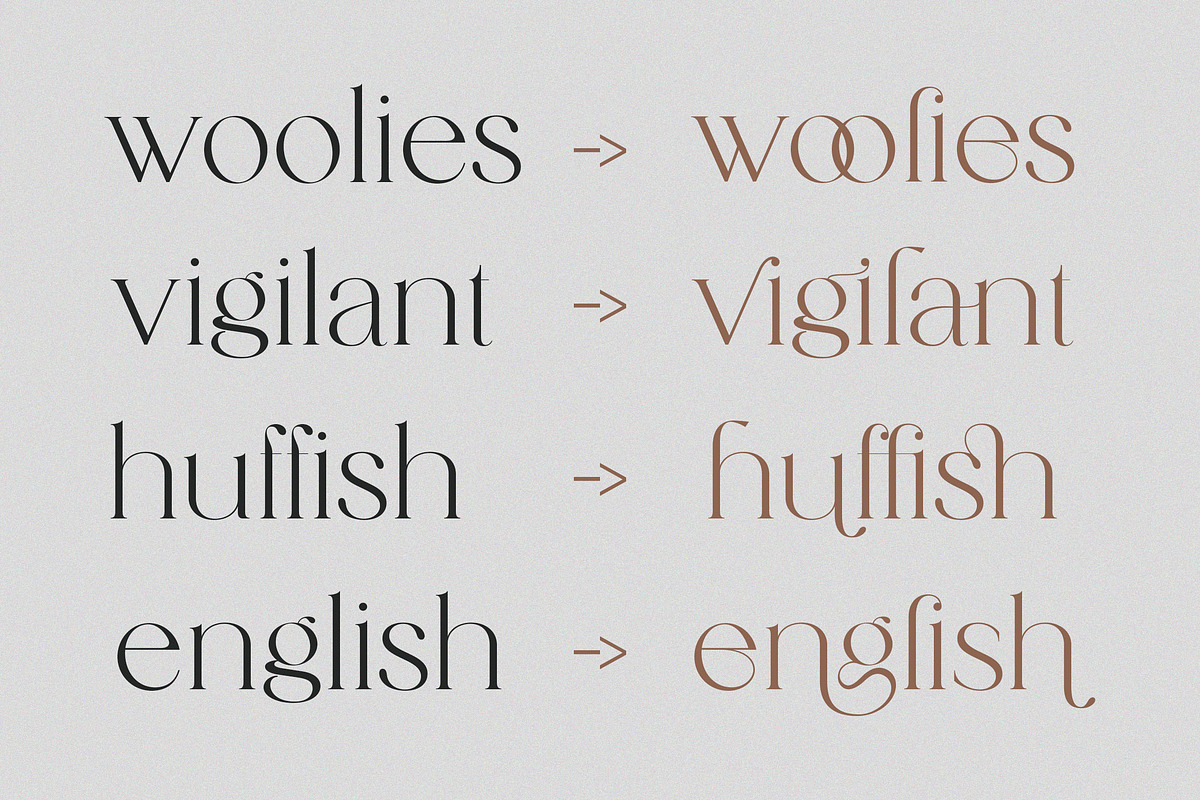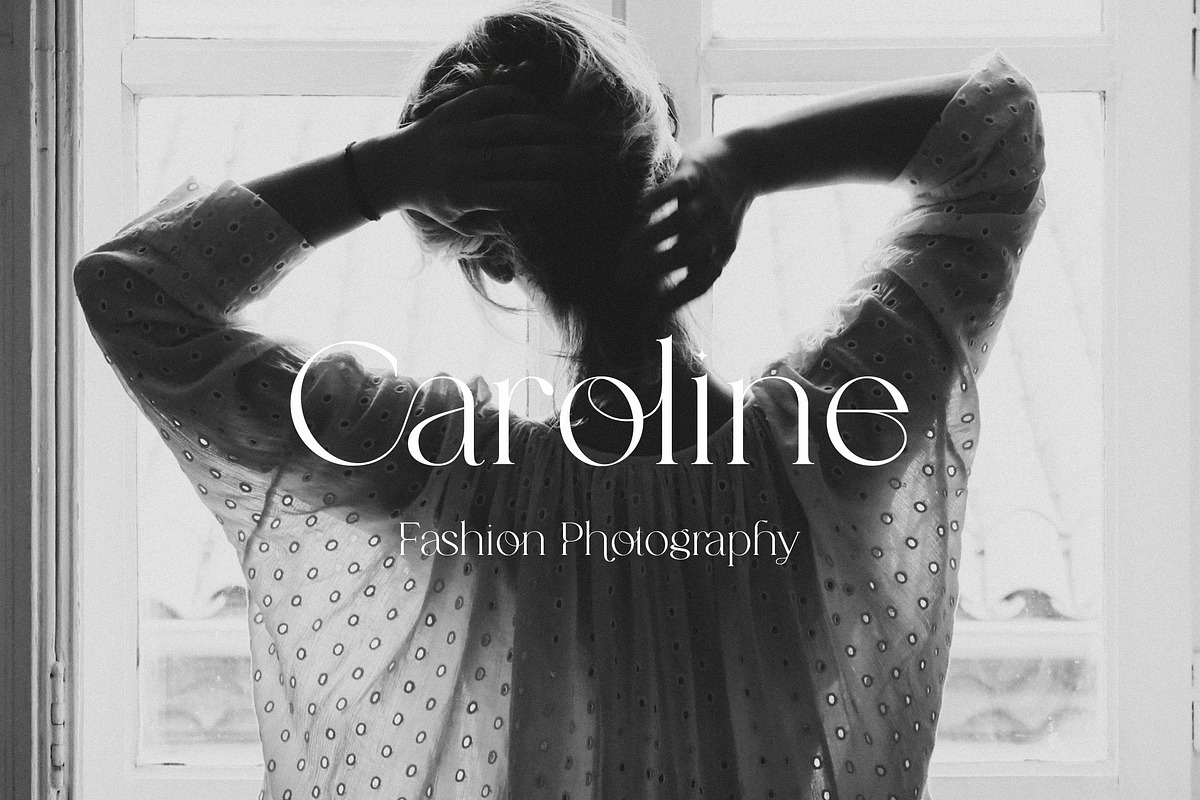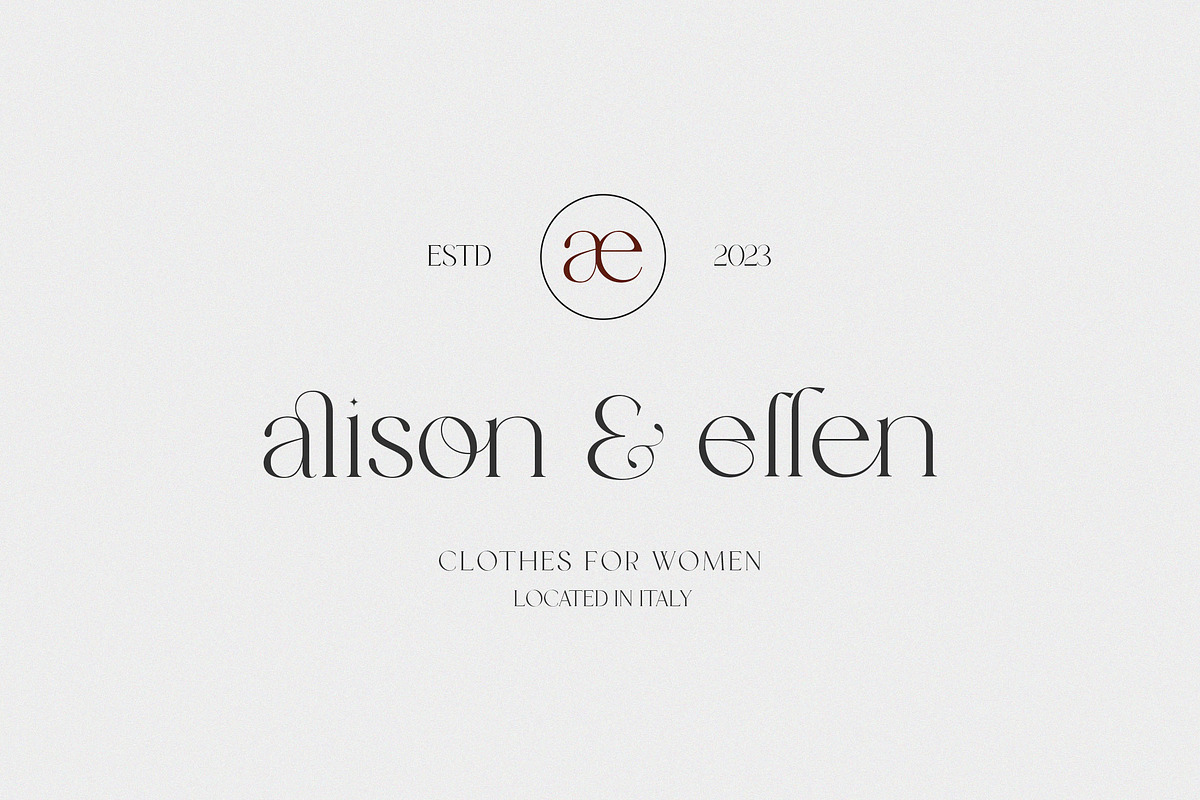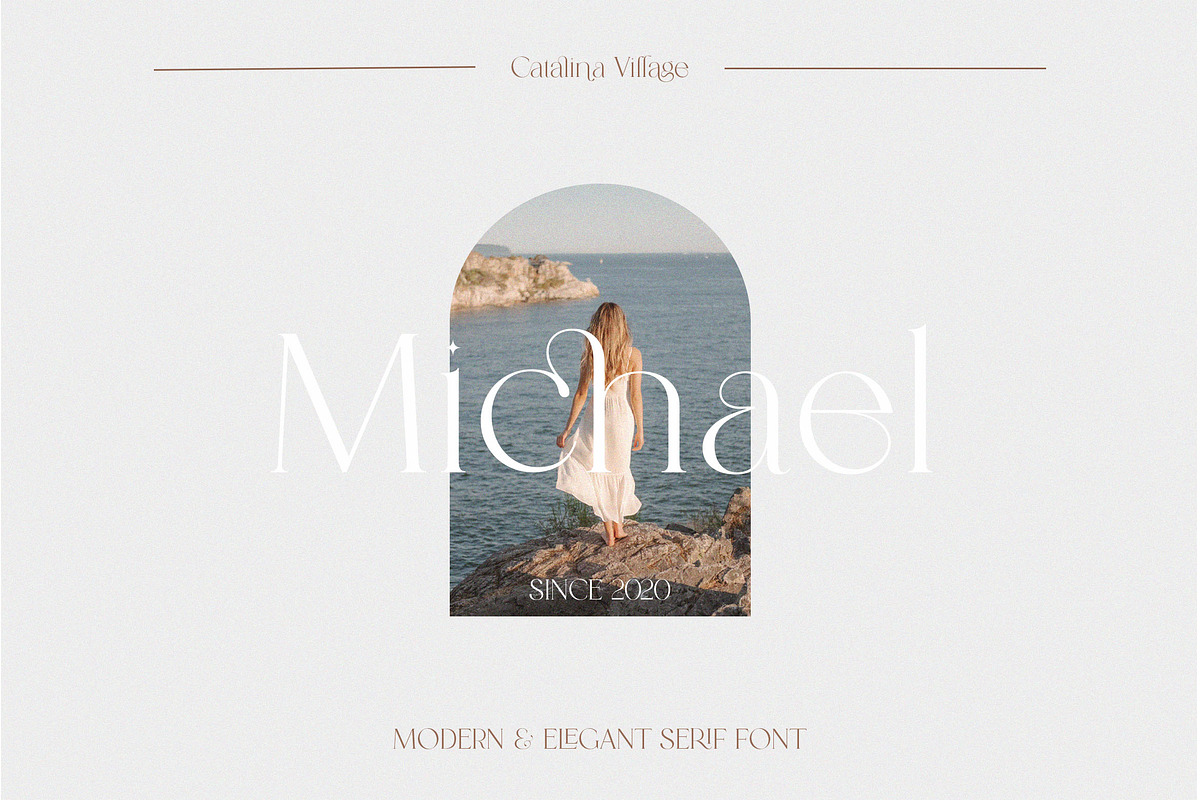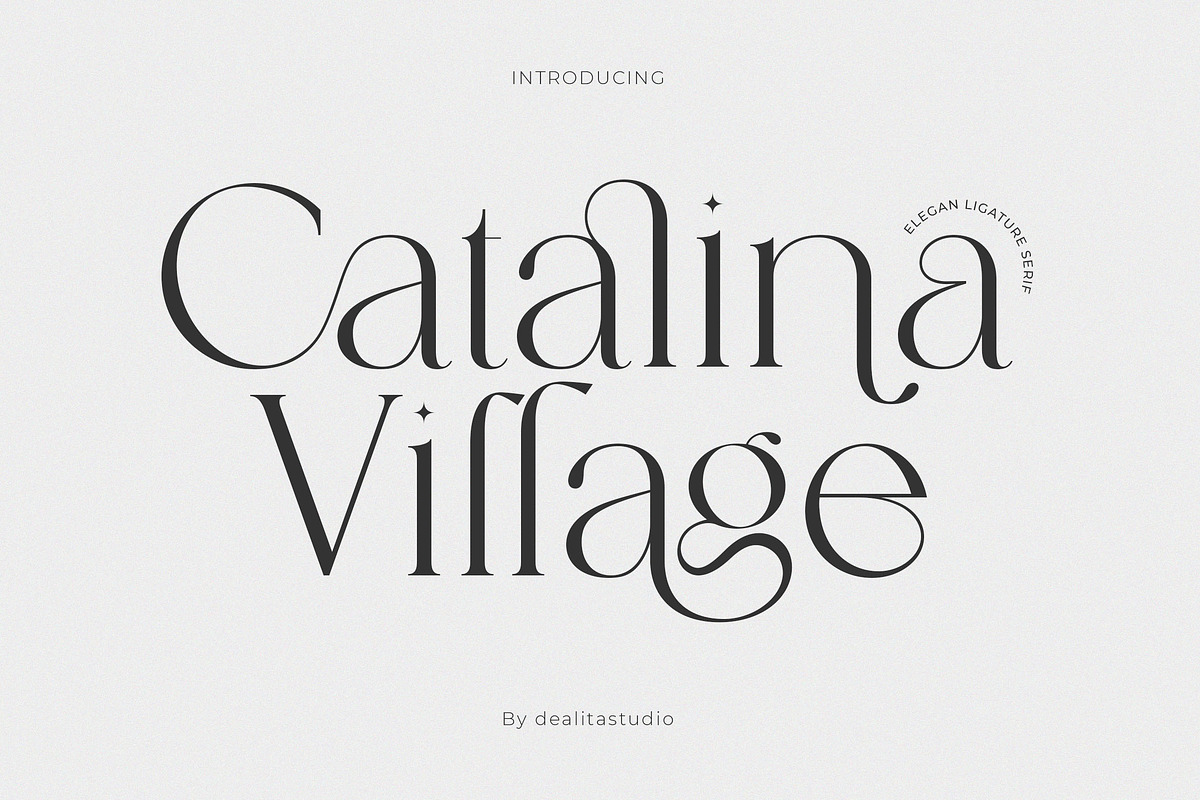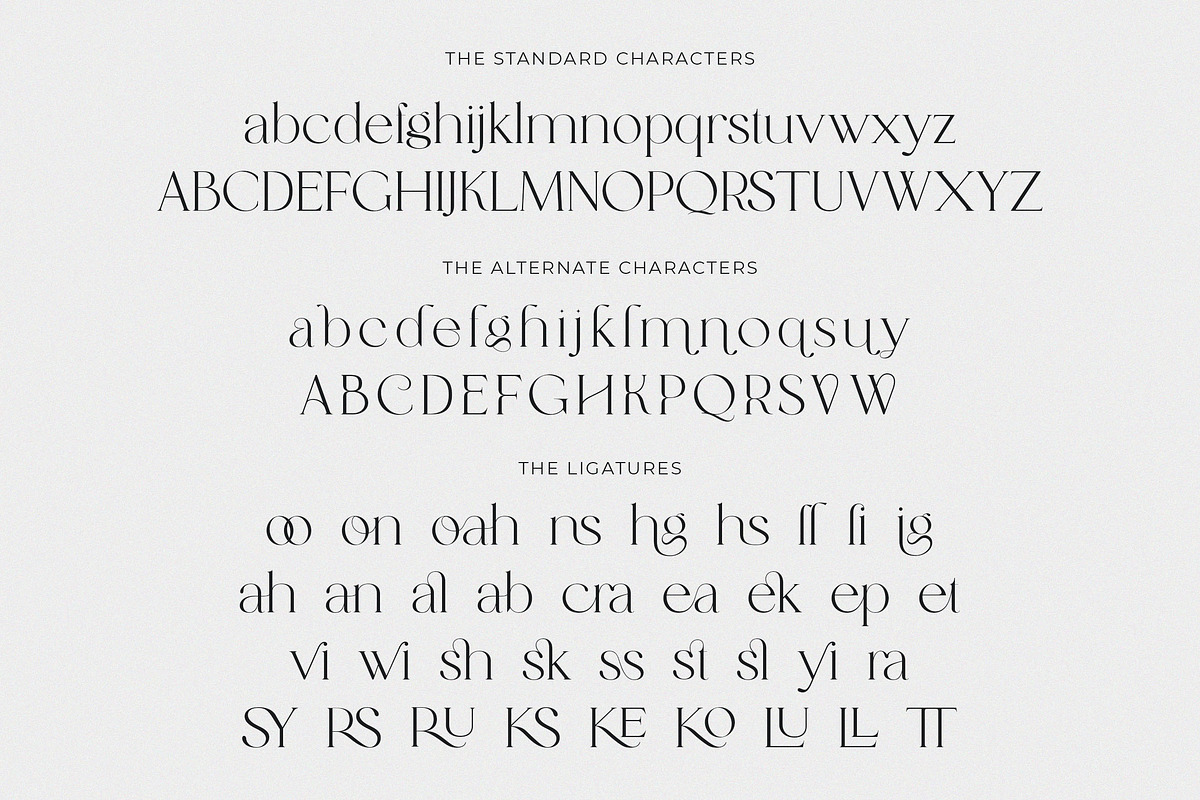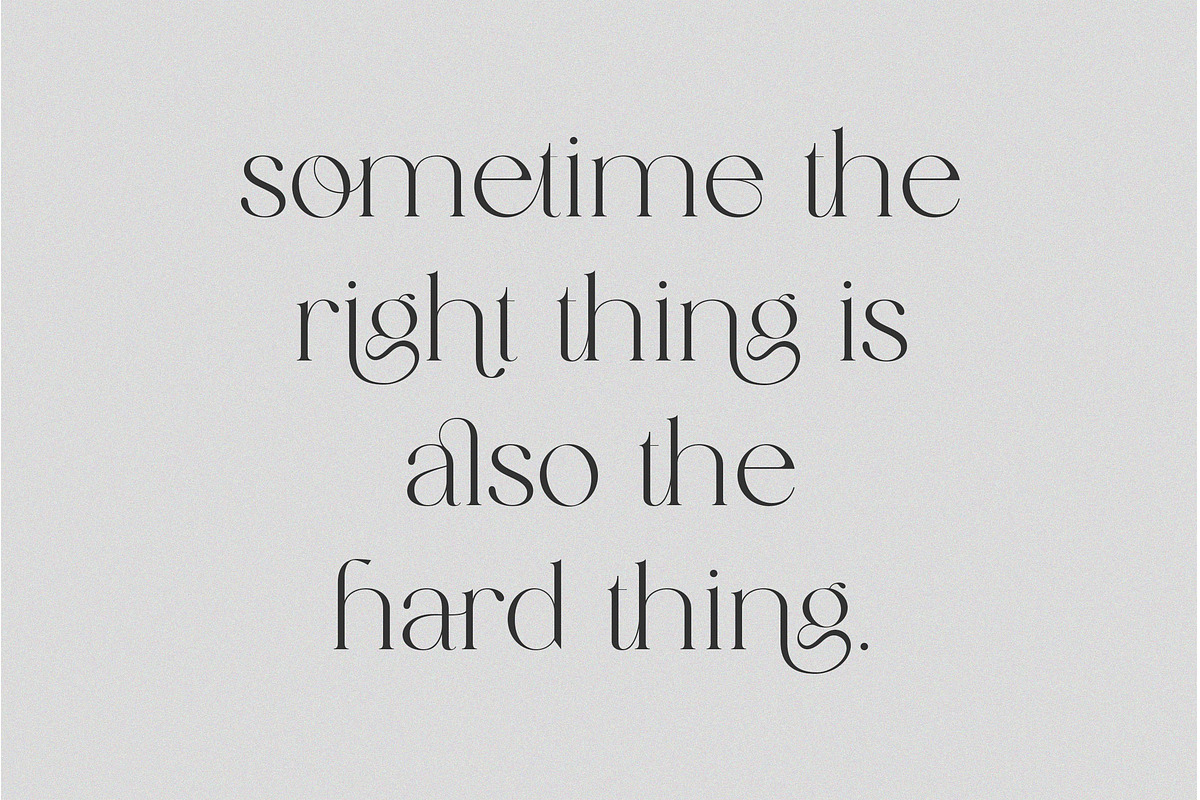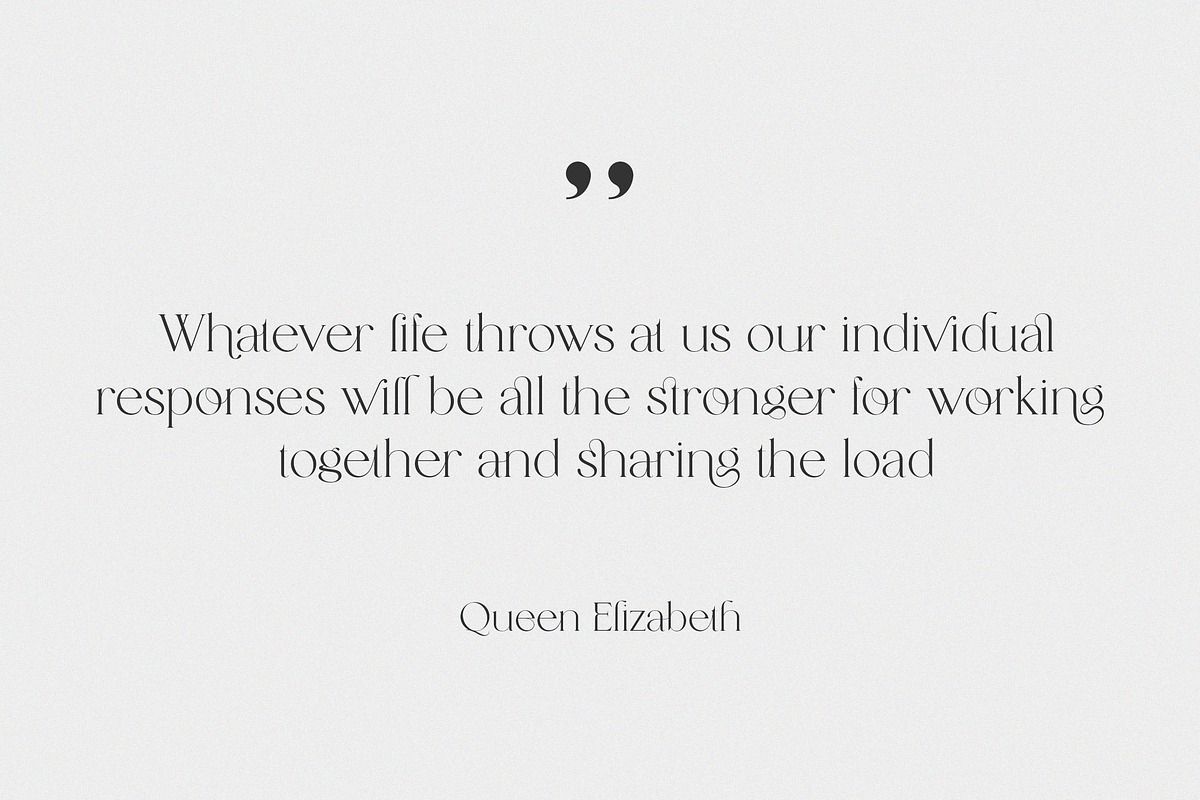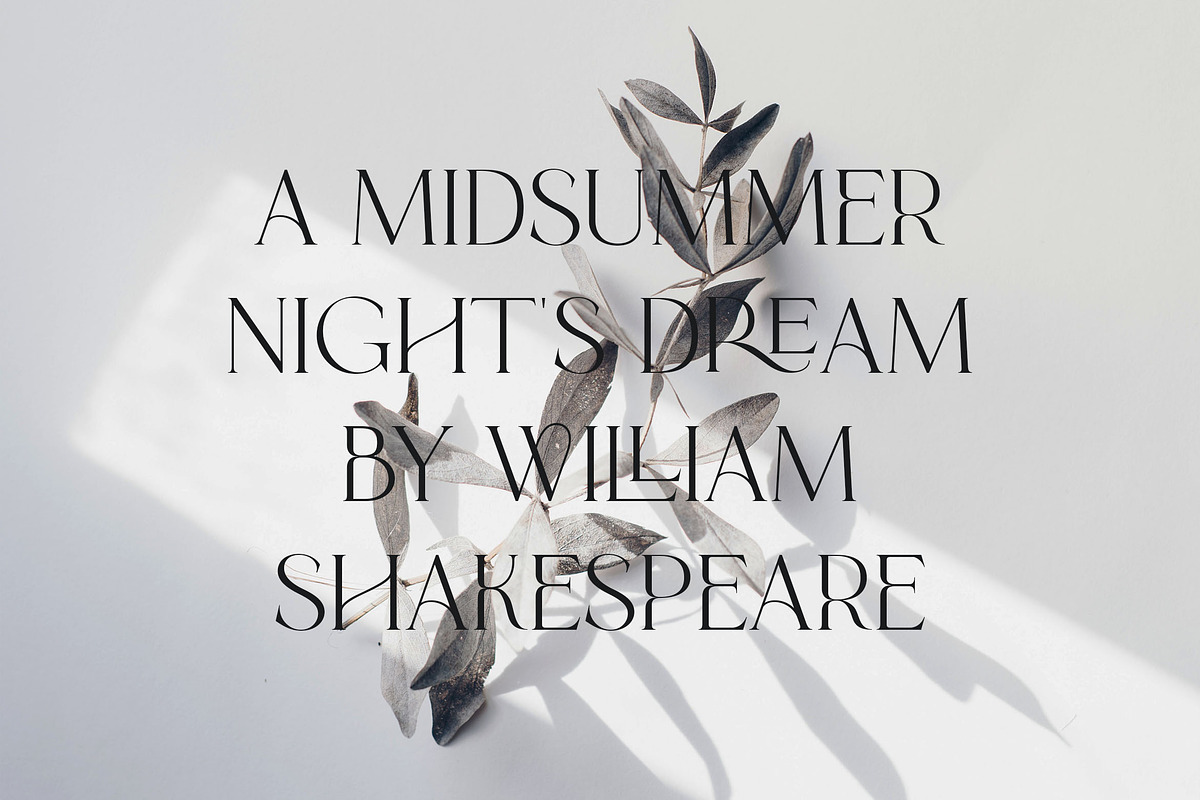
Catalina - Classy Ligature font
Catalina Village - a chic & elegant display modern serif with beautiful contrast. Specially designed for fashion-themed projects, perfectly suitable for creating elegant, chic, lifestyle designs such as logos, titles, and magazines, and more.
- Lowercase uppercase